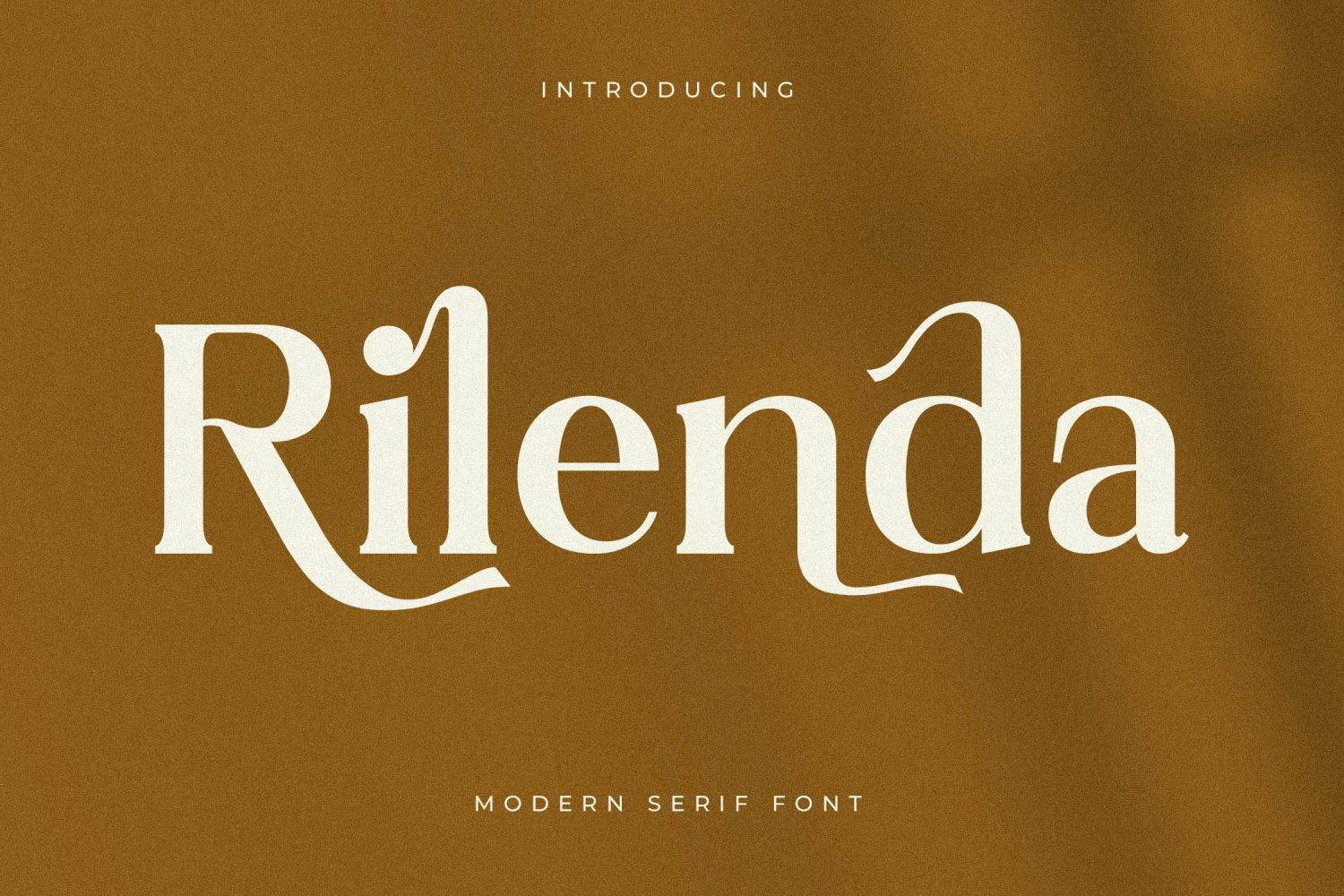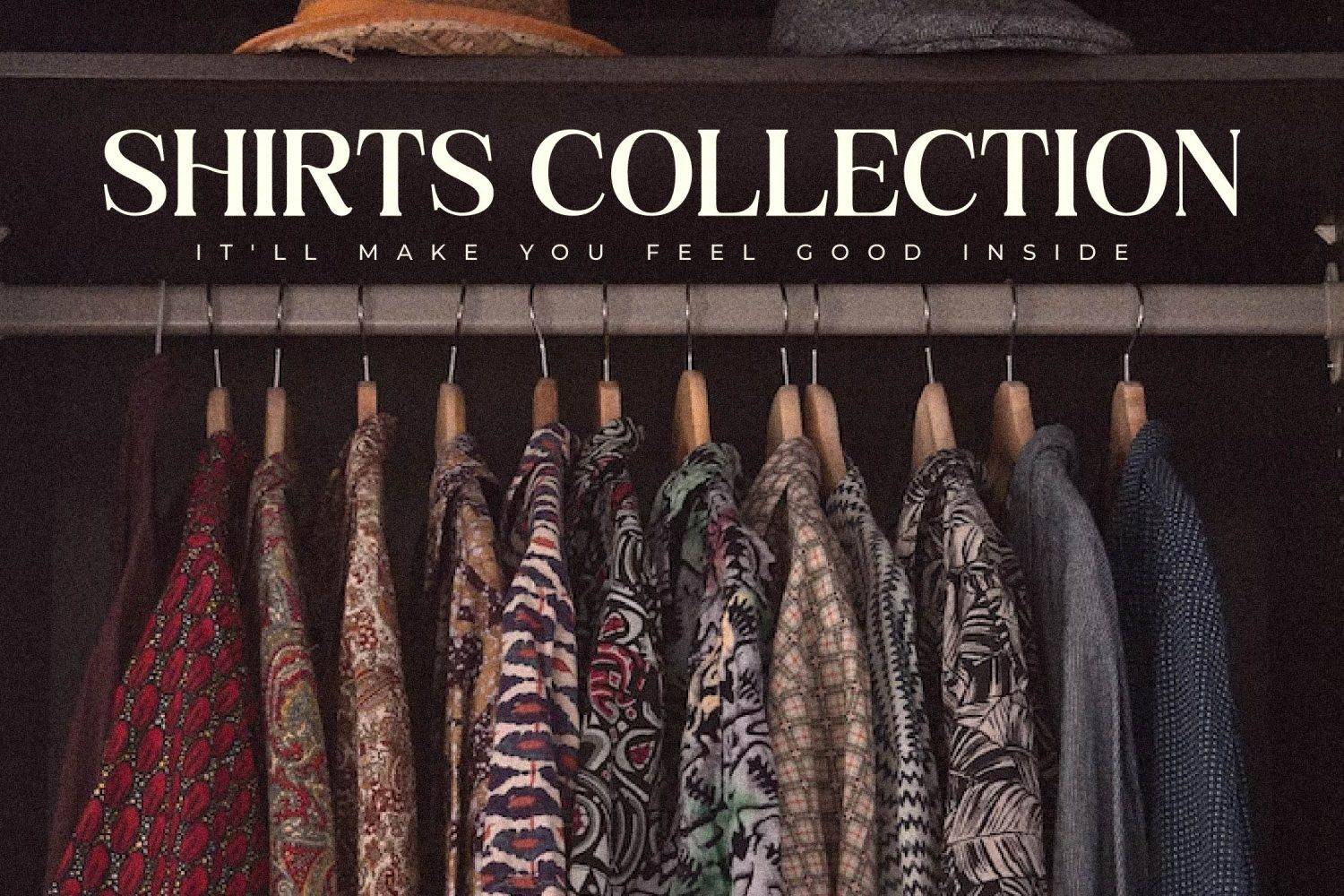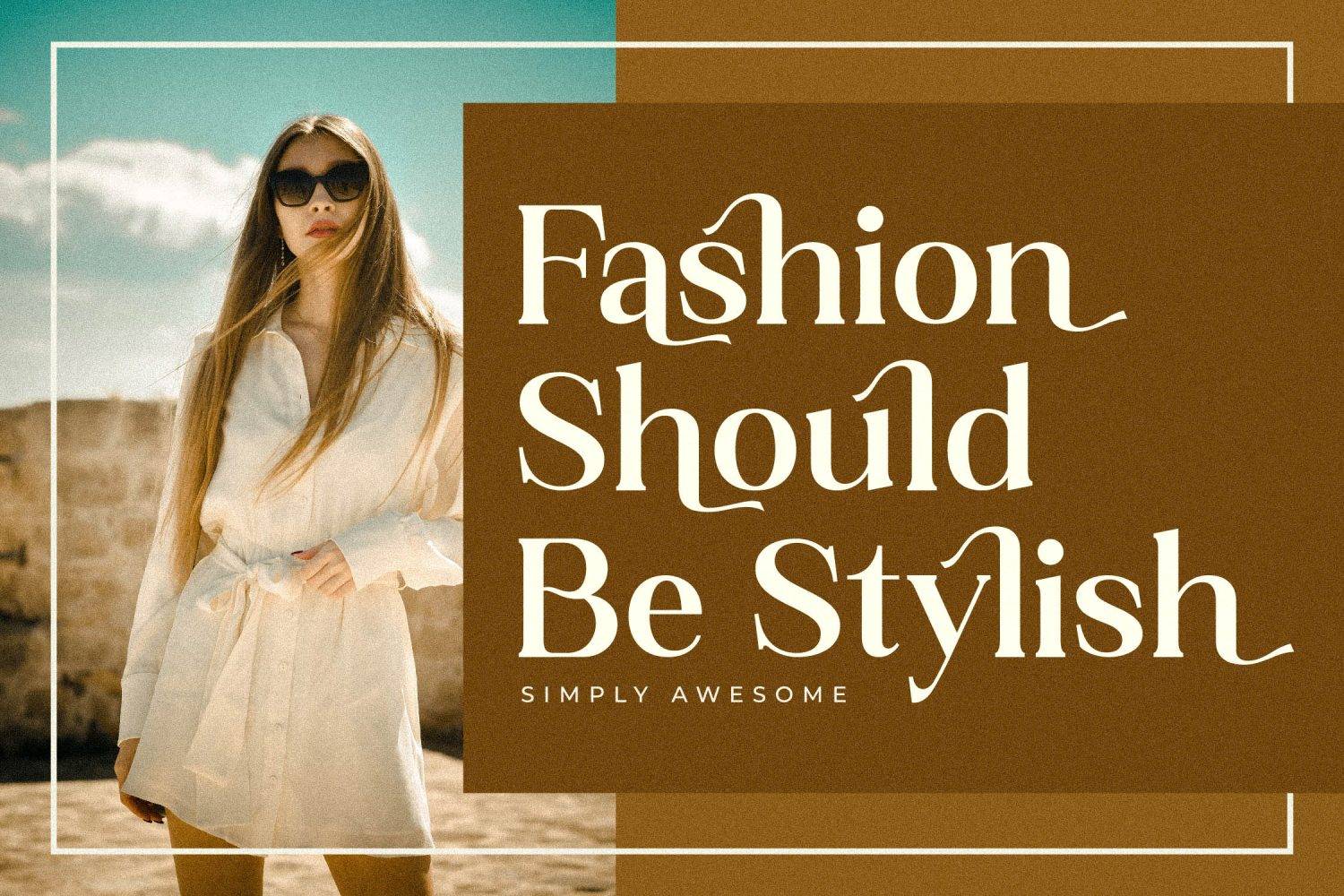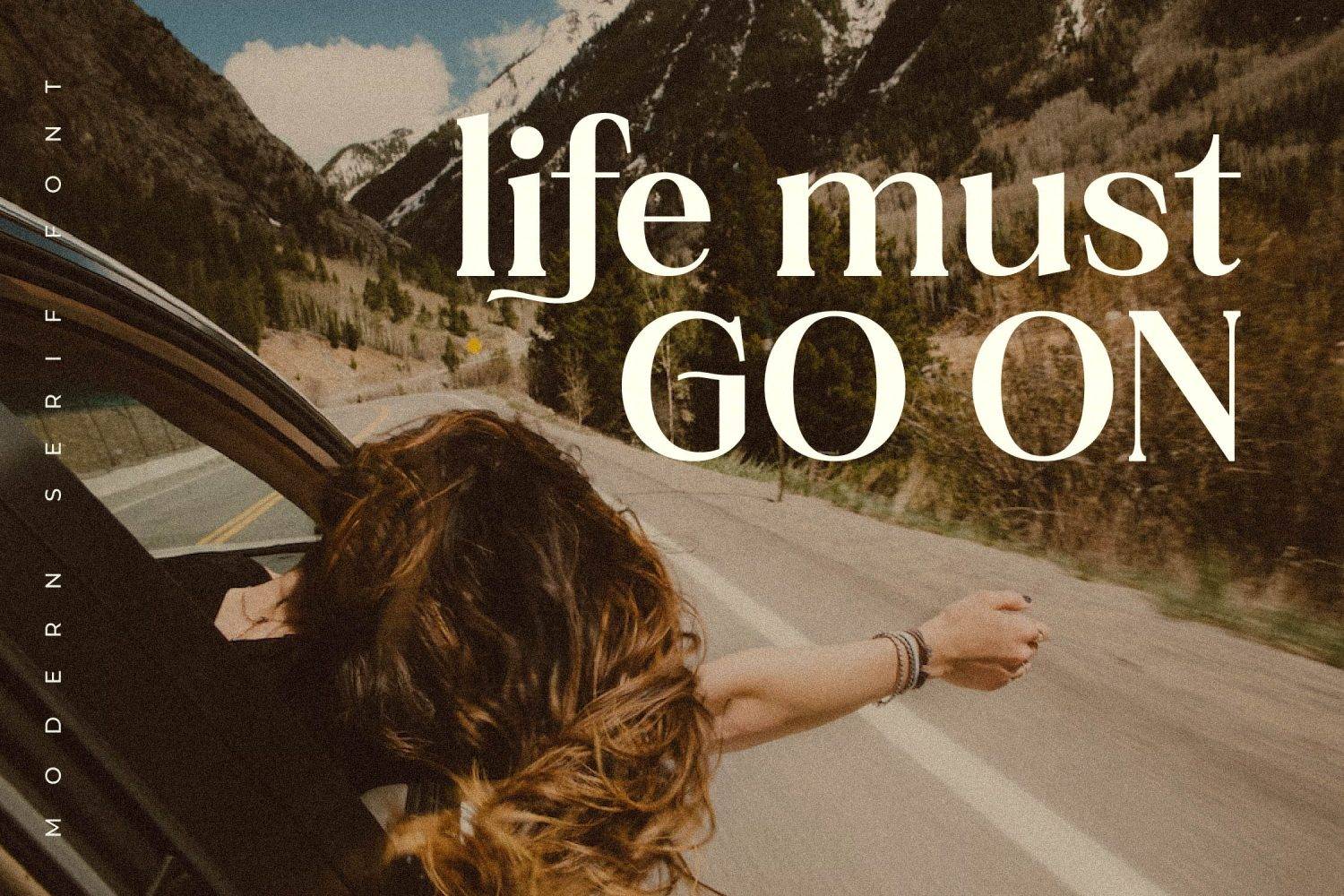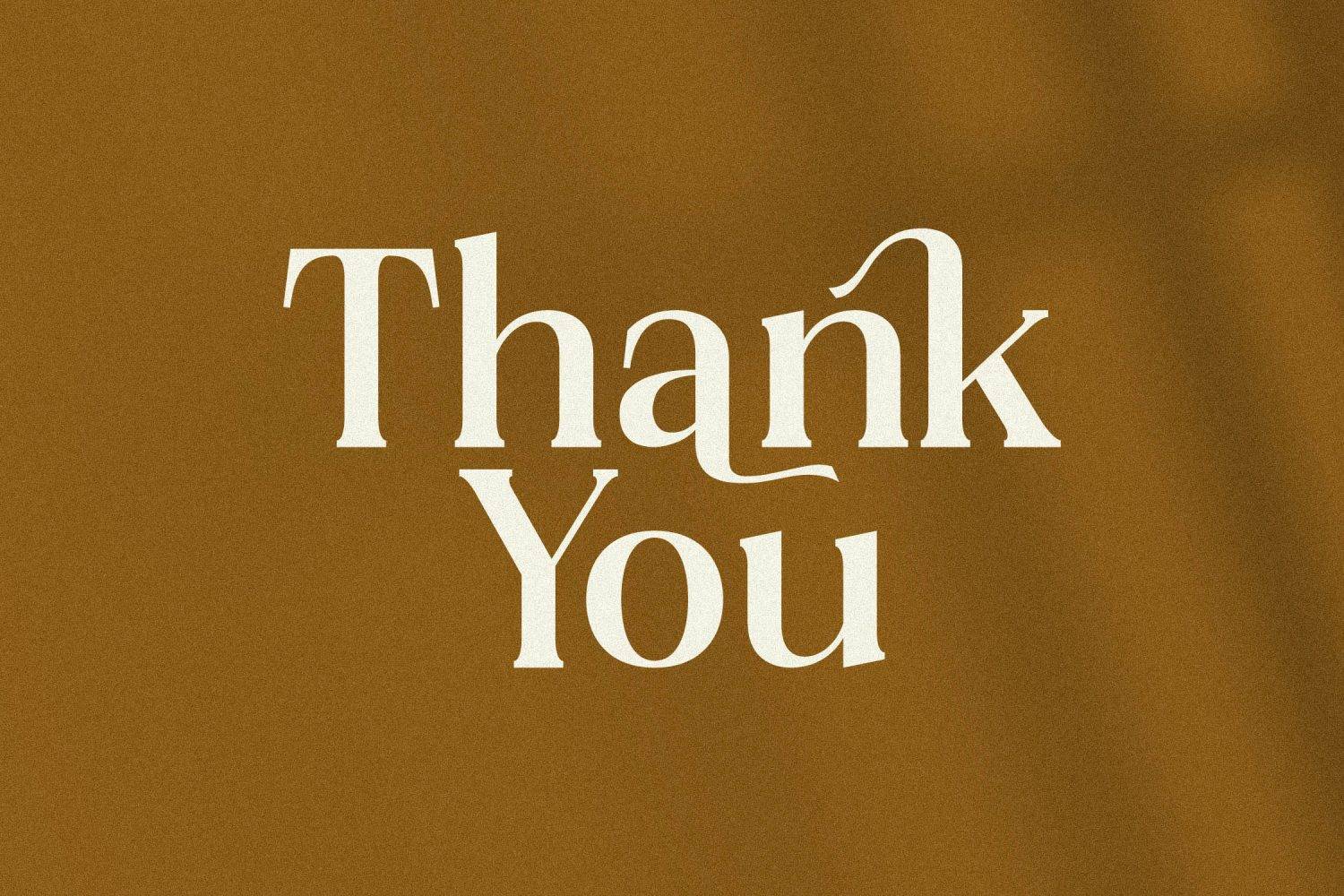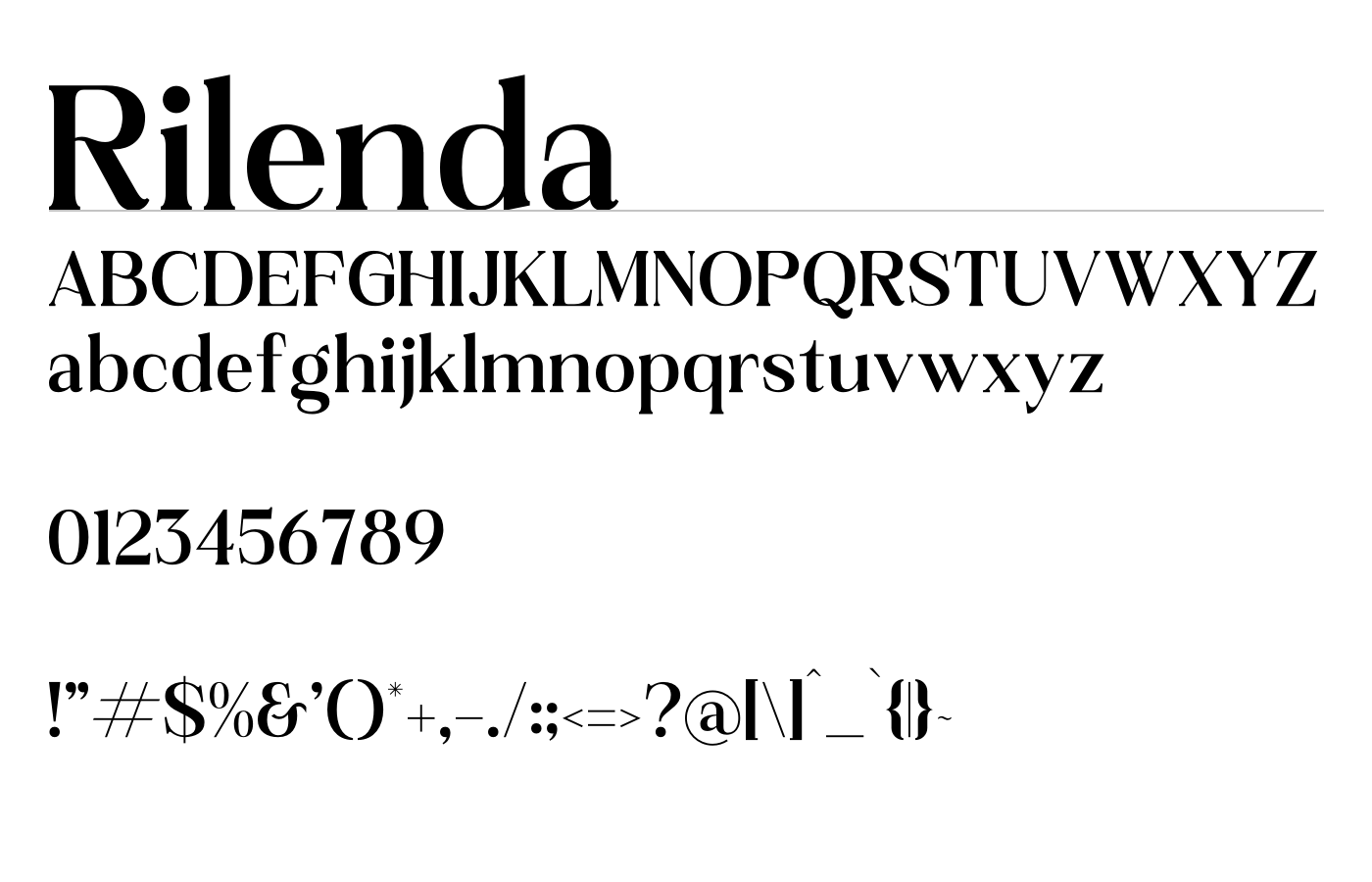
Rilenda is a refined serif font with a classic and elegant feel, featuring medium contrast between thick and thin strokes and gently bracketed serifs. Its tall x-height and slightly condensed letterforms give it a sophisticated presence, making it ideal for luxury branding, editorial headlines, and stylish packaging. This font balances tradition and modernity, perfect for designs that seek to convey seriousness with a touch of artistic flair.
Rilenda Font
About Rilenda Font